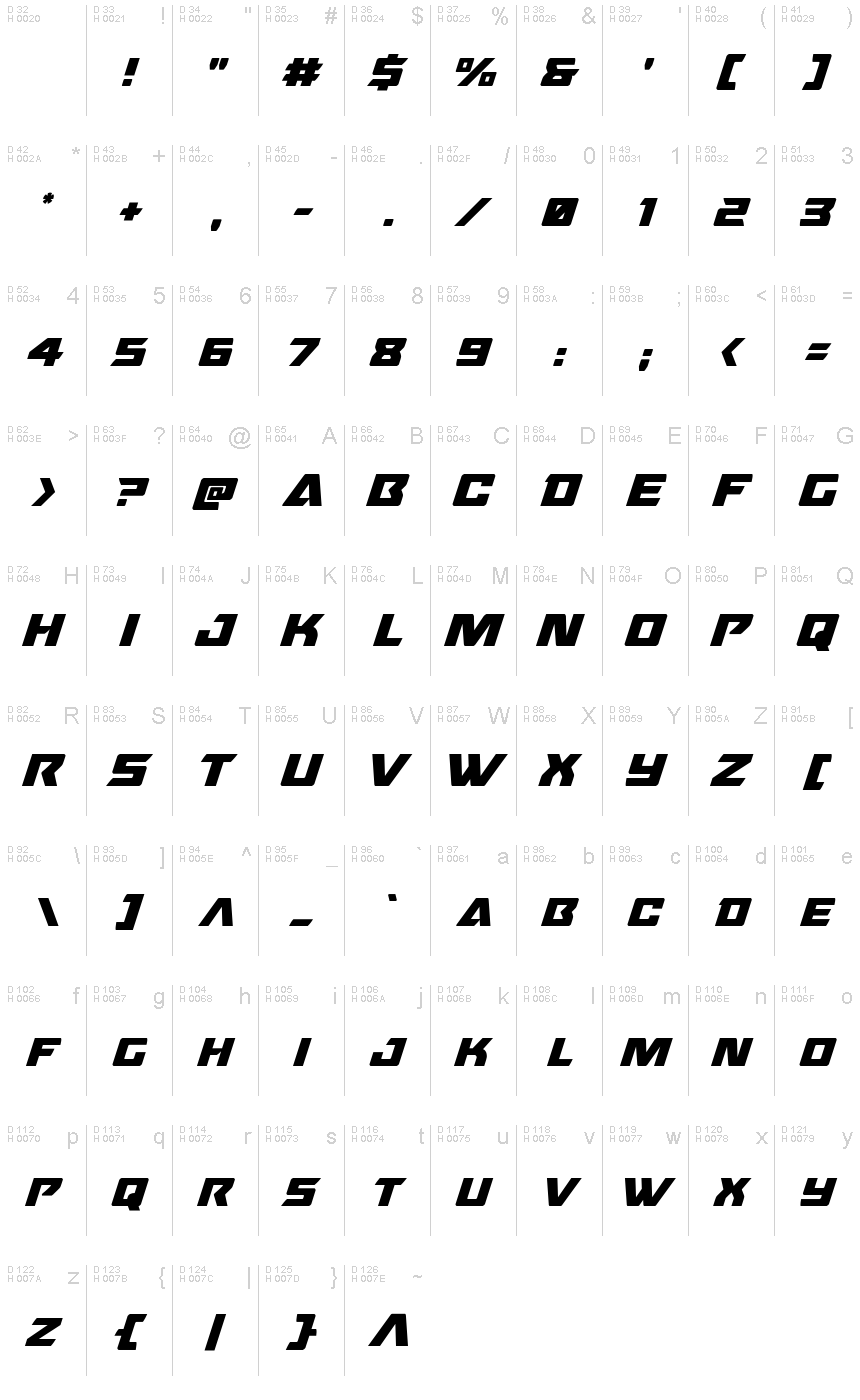
Oceanic Drift Italic
Oceanic Drift is a bold, futuristic font with an expanded, italicized design. Inspired by the drifting currents of the ocean, this display typeface exudes a sense of dynamic energy and technological sophistication. The angular, geometric letterforms and distinctive curves convey a sleek, modern aesthetic, making Oceanic Drift an ideal choice for a wide range of applications, from digital interfaces and branding to event posters and editorial layouts. Its striking visual impact and versatility make it a compelling option for designers seeking to craft impactful, forward-thinking compositions.
The font's expanded width and italic style lend it an eye-catching, distinctive presence, while the bold weight ensures excellent legibility across various mediums. Oceanic Drift's unique blend of futuristic flair and fluid, organic influences sets it apart, making it a versatile tool for designers aiming to create visually compelling, technologically-oriented designs.